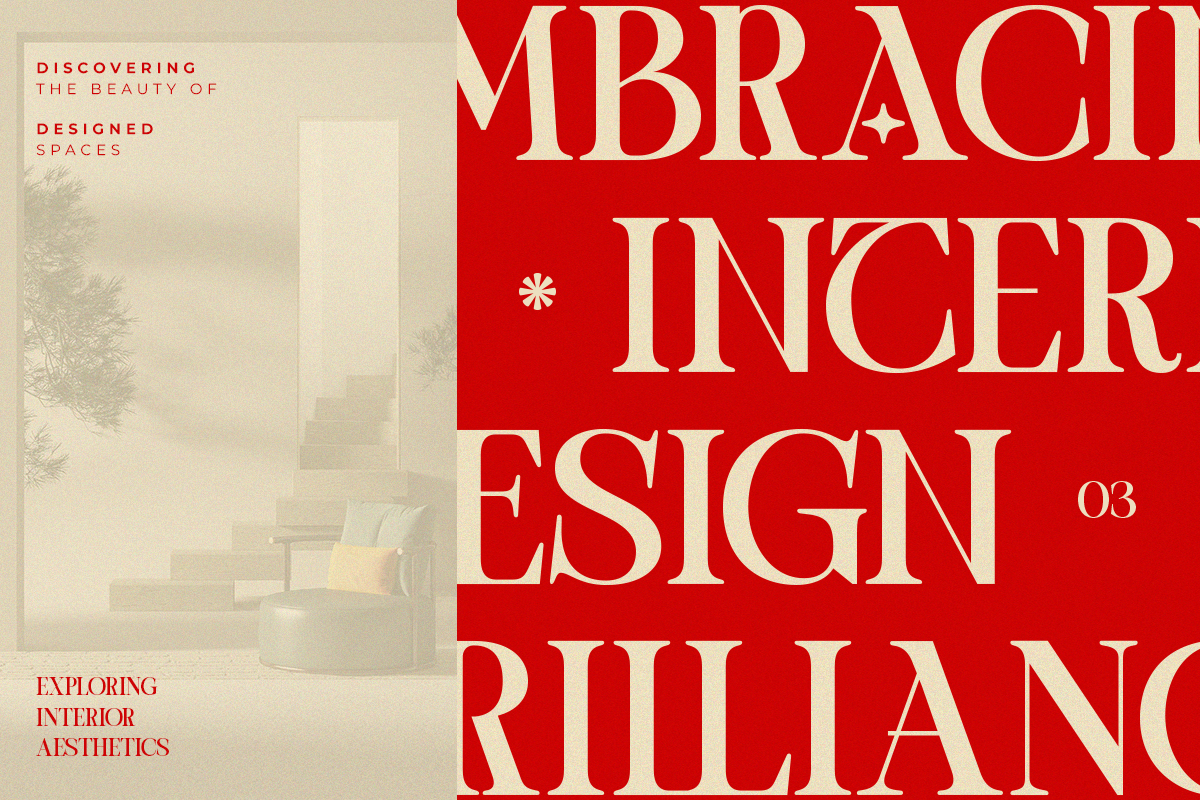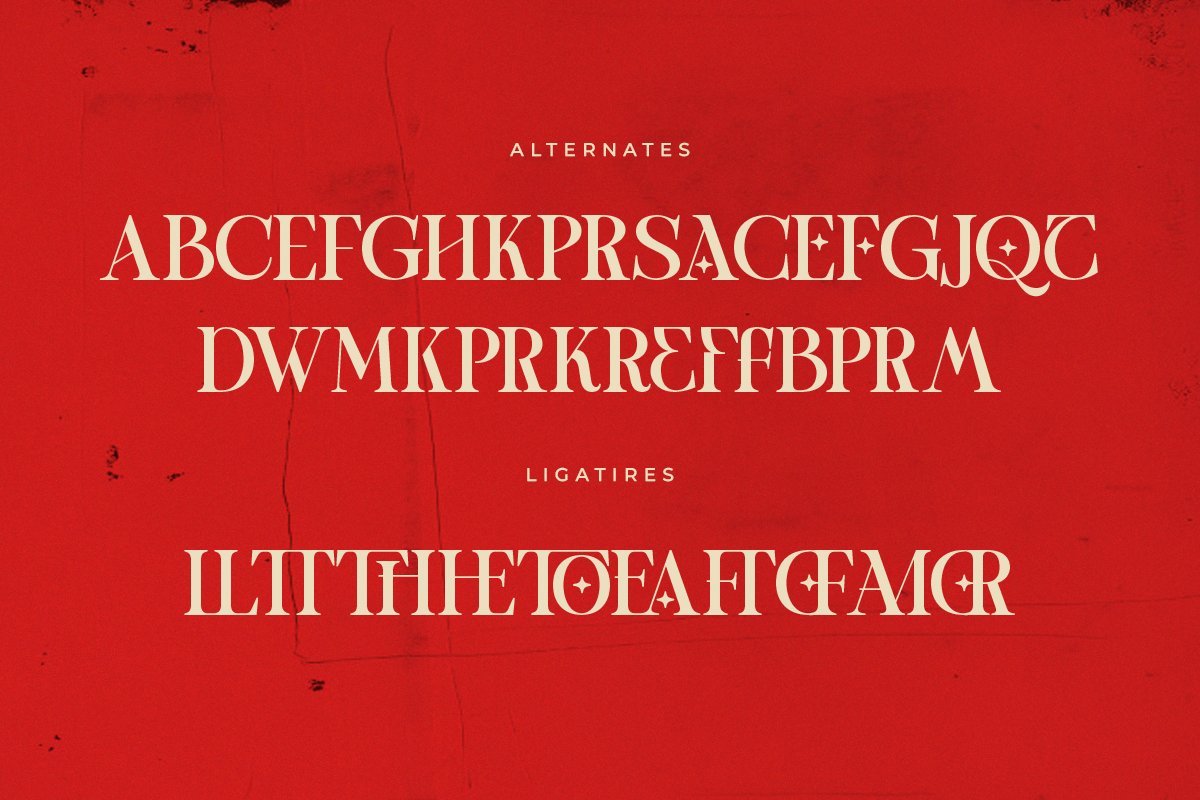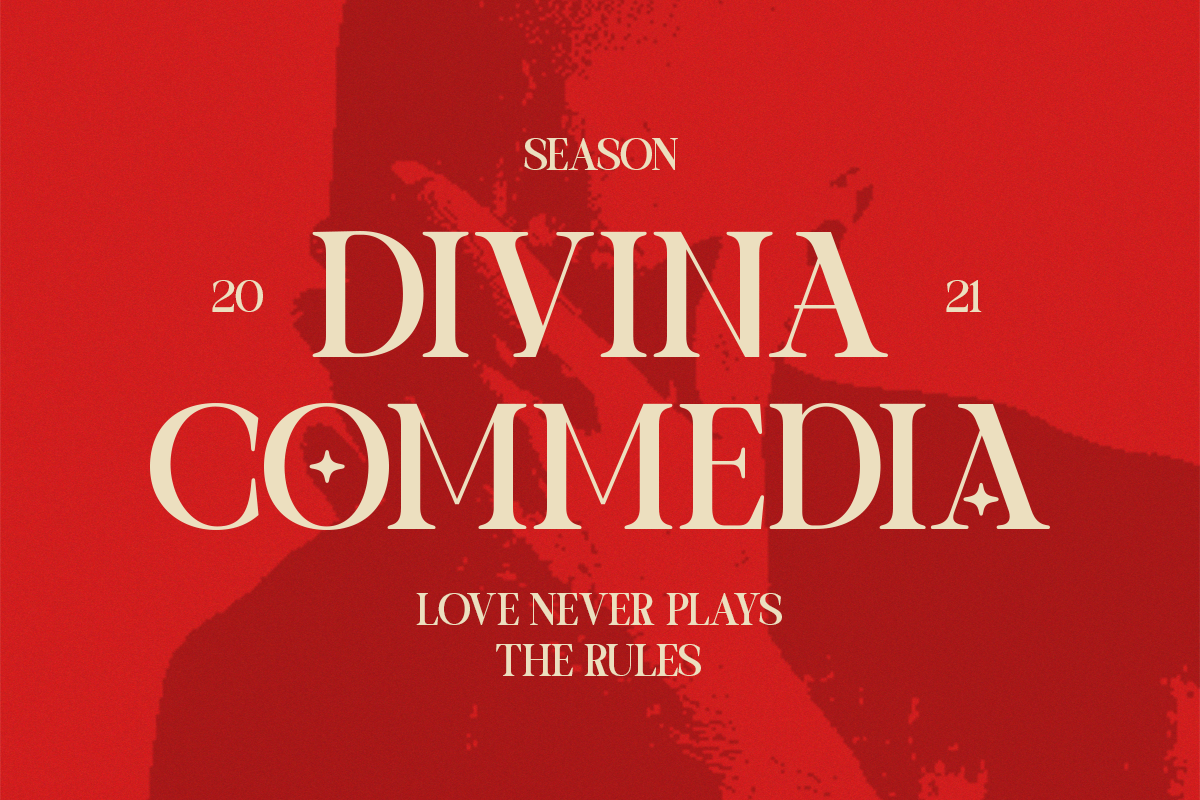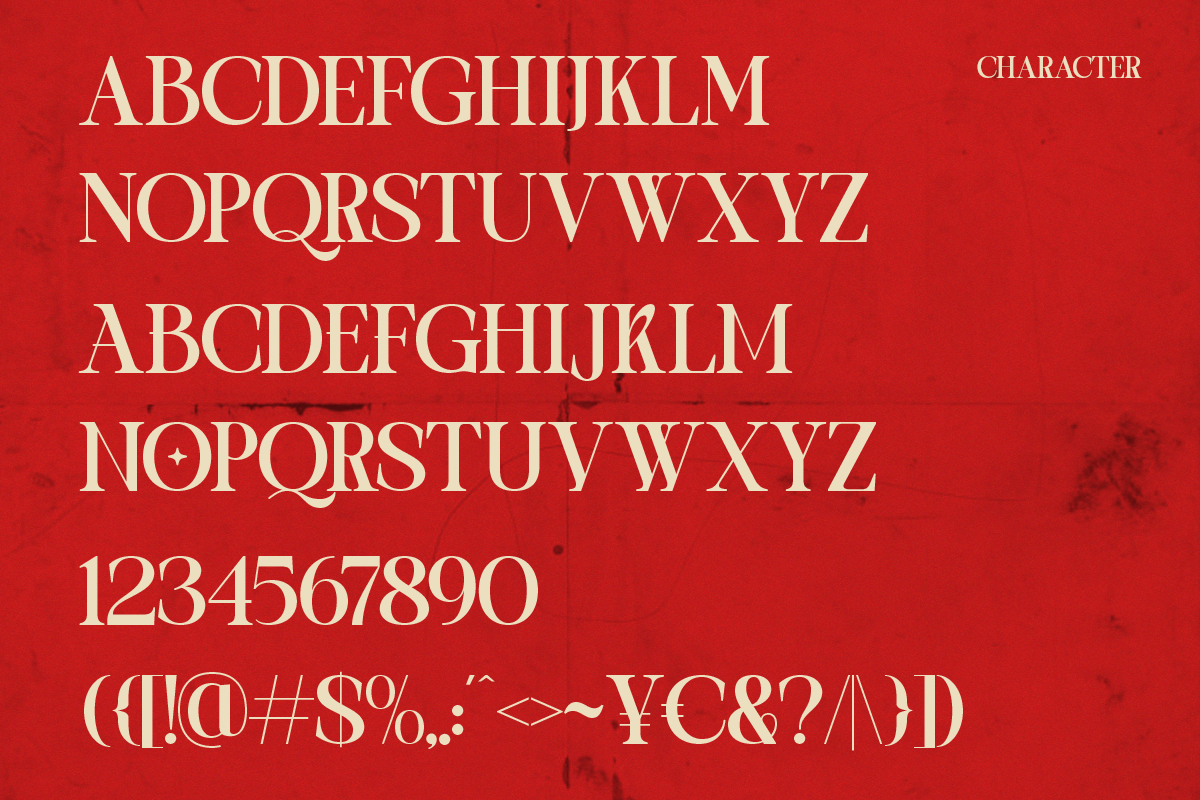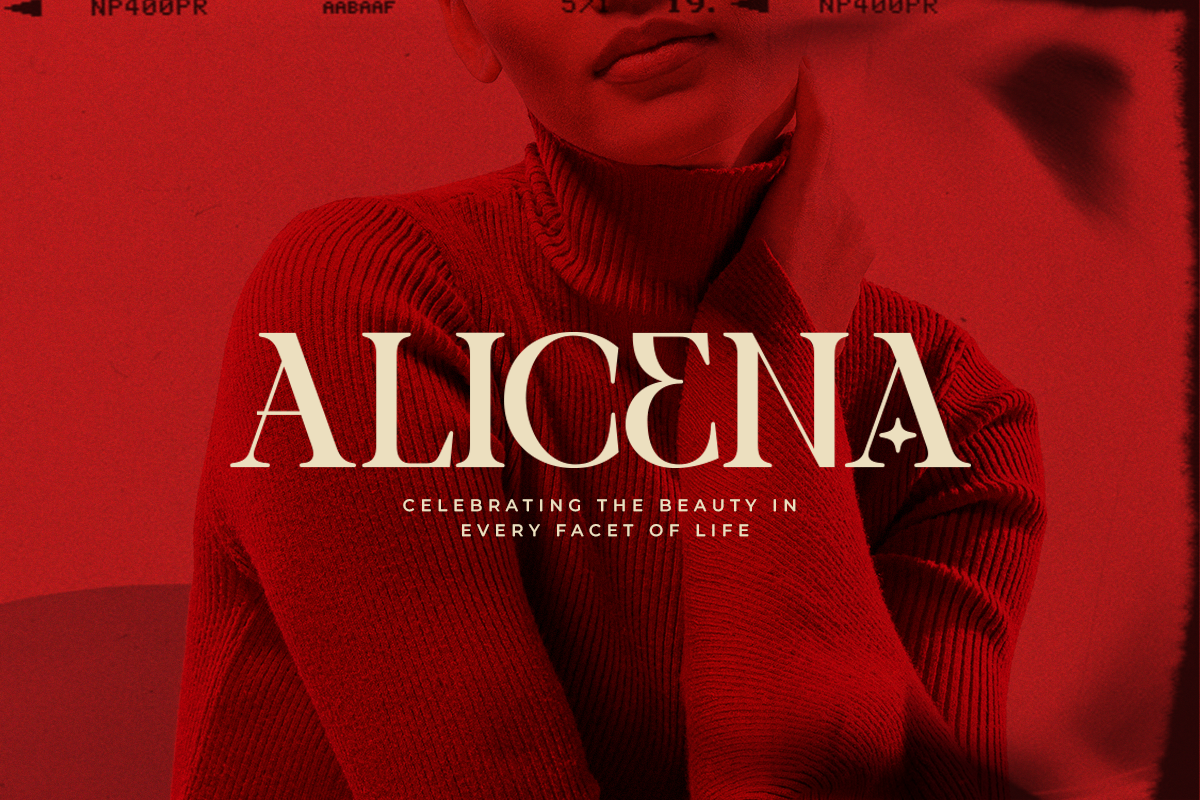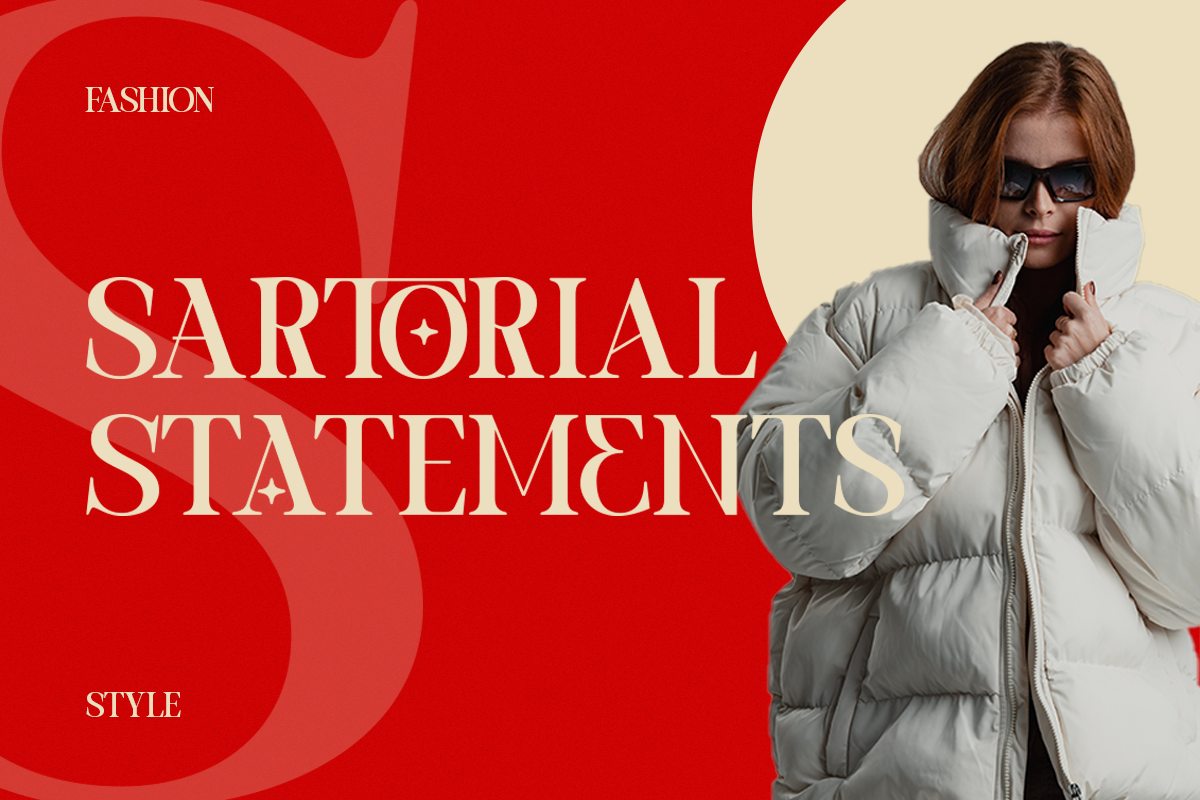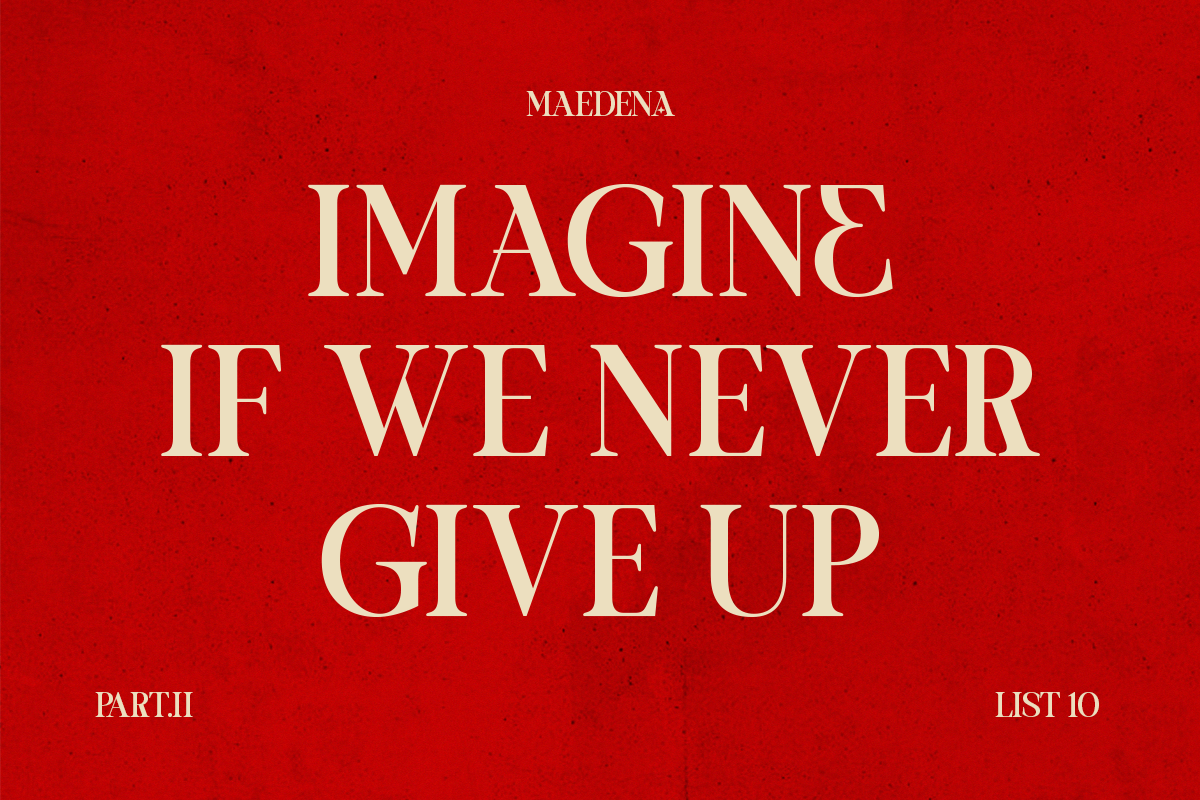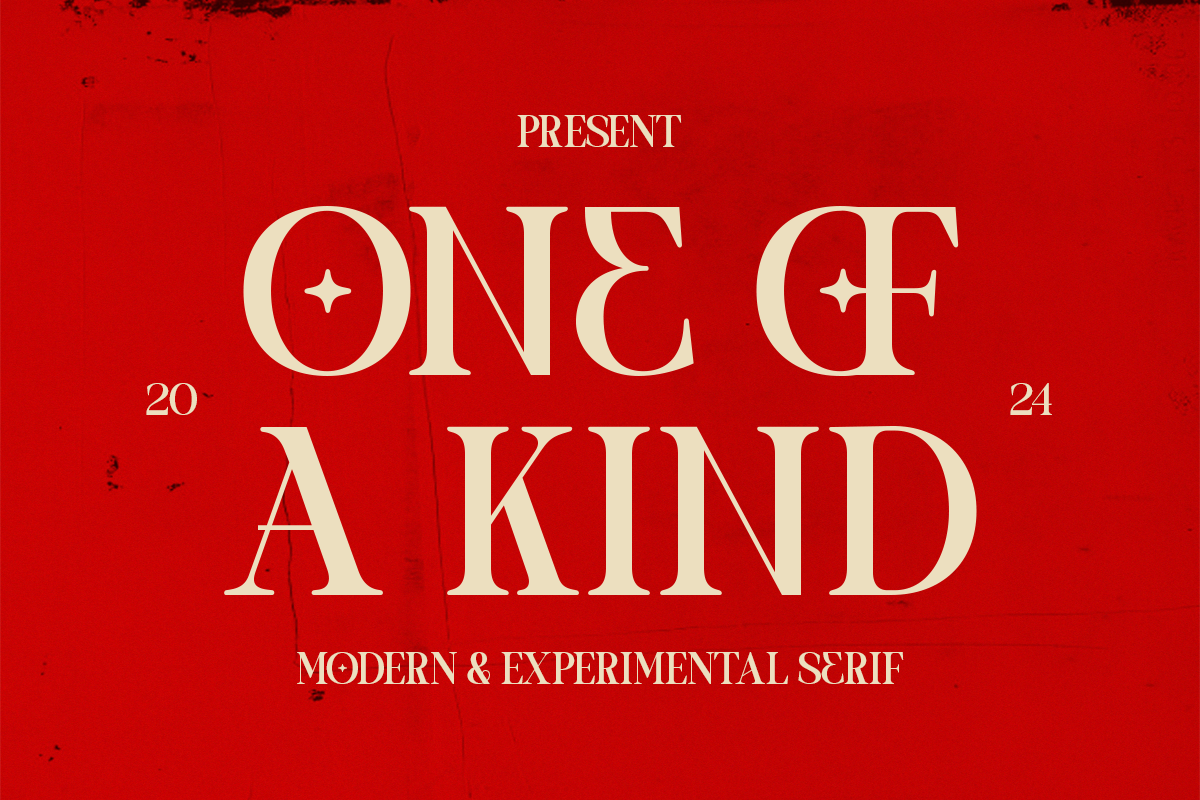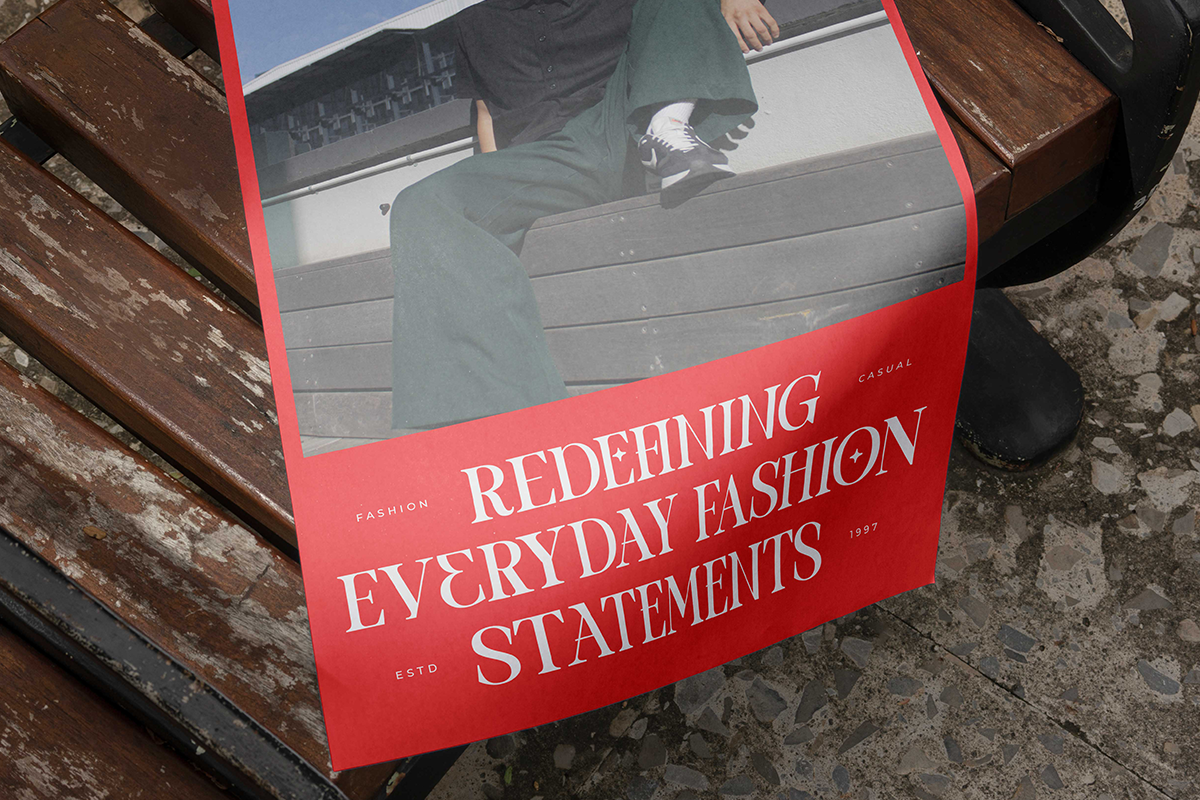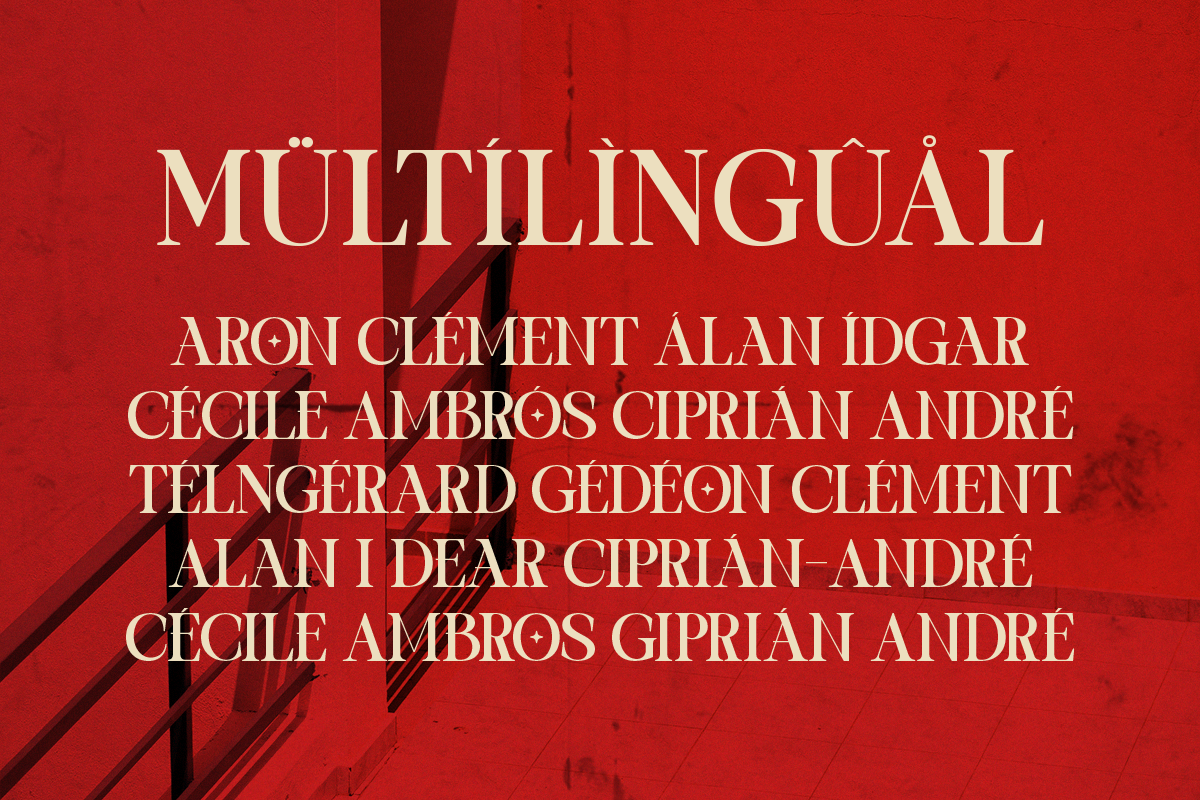
One of a kind | Serif font
One of a kind is modern experimental serif typeface, A modern and experimental serif font is a unique blend that combines traditional serif elements with a touch of modernity and innovation. These fonts possess classical serif characteristics while showcasing experimental elements that set them apart from conventional serif fonts.
Their design might incorporate variations in letter proportions, unconventional serif shapes, and attention-grabbing details such as sharp angles or bolder curves. Fonts of this nature often exude a more eccentric, innovative, and captivating vibe. This font will add a special touch to your designs and captivate viewers.
One of a kind Features:
- Uppercase And Lowercase
- Alternates And Ligatures